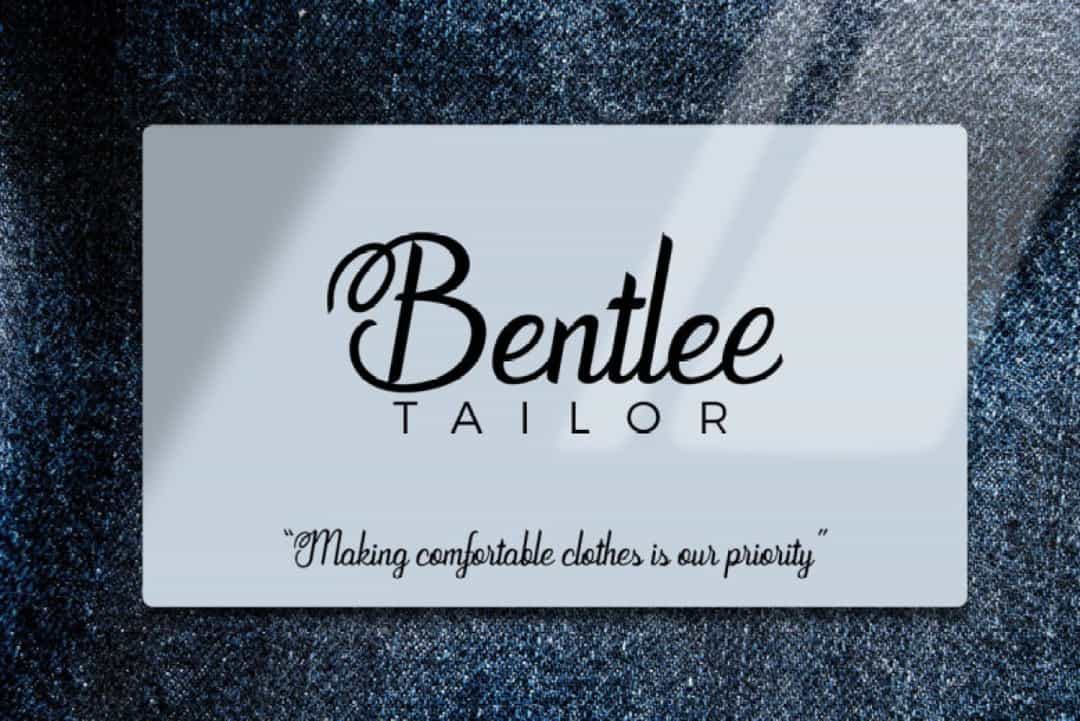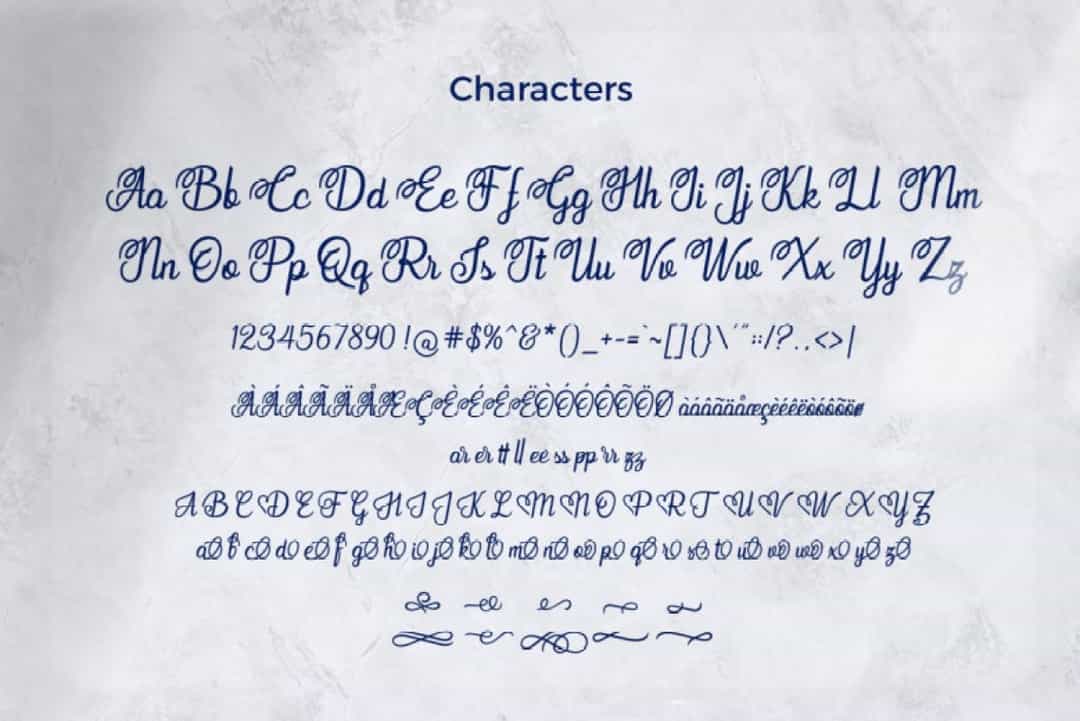
Do you need modern script font for your design project? Elldier Script font may be precisely what you need if you are looking for a font to complement your style and use it in creating wedding signs, advertisements design, logo creation for quotes or products, packaging designs, and T-shirt lettering, among other projects.